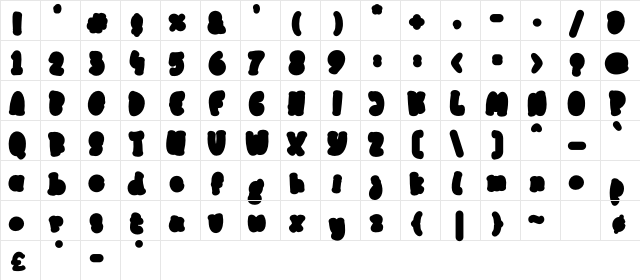
Mister Froggie Extend Regular
| Designer | Donis Miftahudin |
Design Context for Mister Froggie Extend Typeface
Mister Froggie Extend is a composed and adaptable typeface that performs quietly and consistently across a wide range of design contexts.